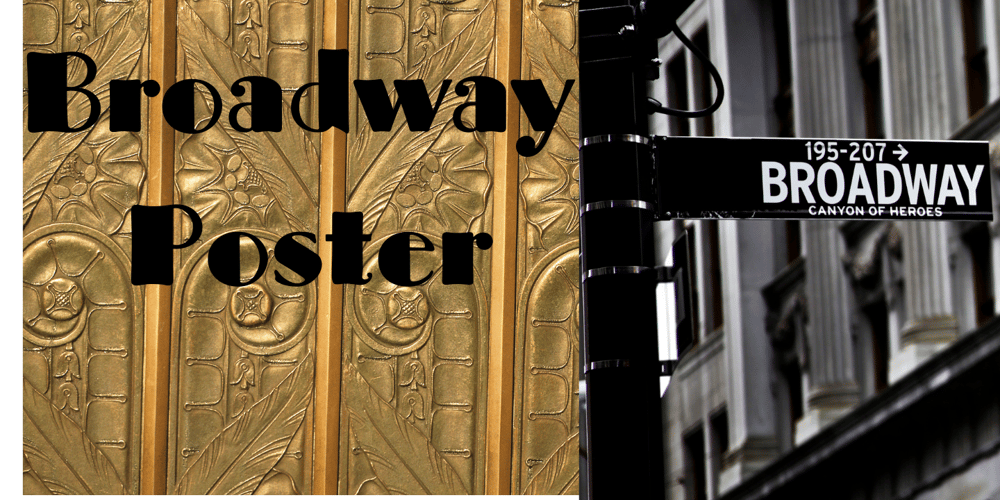
Broadway Poster
Broadway Poster font
Broadway Poster Font Family was designed by Morris Fuller Benton and published by GroupType. Broadway Poster contains 1 styles and family package options. Originally designed by Morris Fuller Benton in 1925, FontHaus’s 1995 revival is based on a design named “Novelty Broadway”. Characters were referenced from “Commercial Art of Show Card Lettering” by James Eisenberg, published by D. Van Nostrand Company in 1945. This Broadway is classic Broadway but with some charming differences such as a slanted lower case “f” a remarkable lower case “g” and a high-waisted upper case case “R”, as only a few examples. It was named “Novelty” because the alphabet incorporated a concave design feature in the tops and bottoms of each letter. These differences allow this version to possess much more personality than that of all other Broadway designs on the market. It looks almost hand brushed, has soft edges and is no where near as sterile looking as all the other digital versions. It feels very 1925!